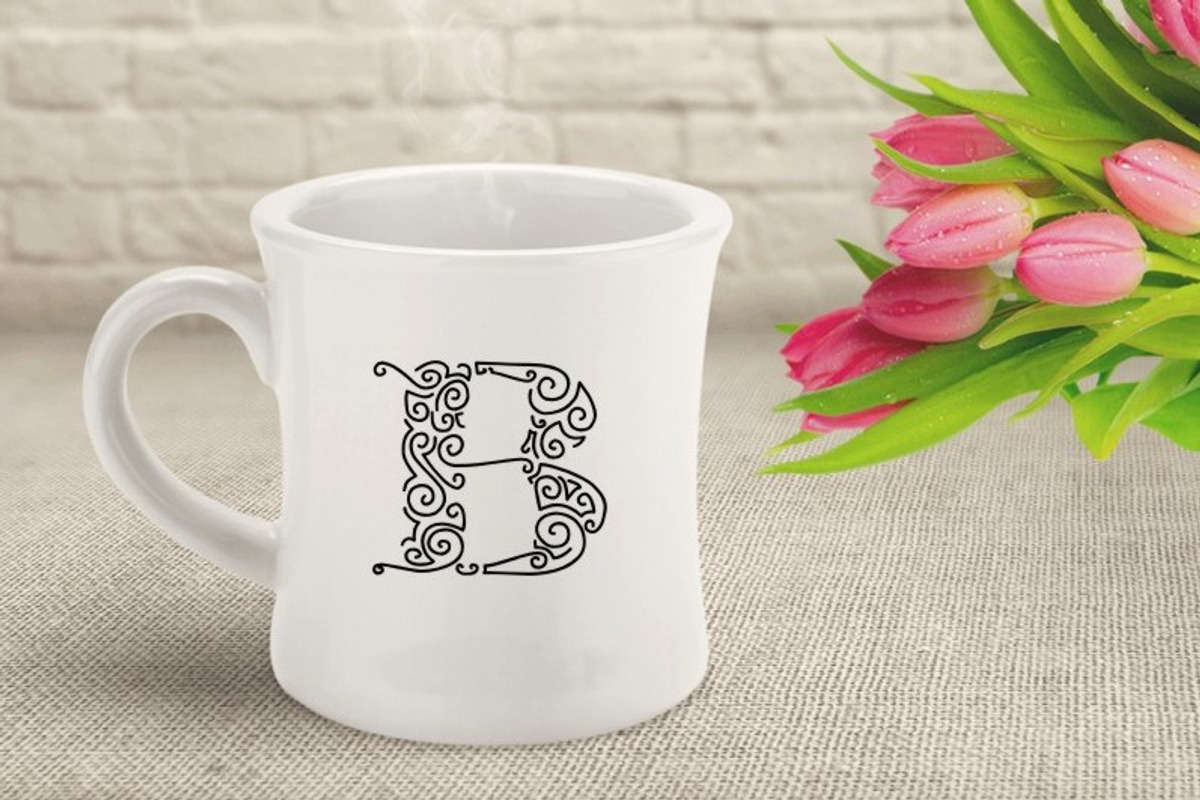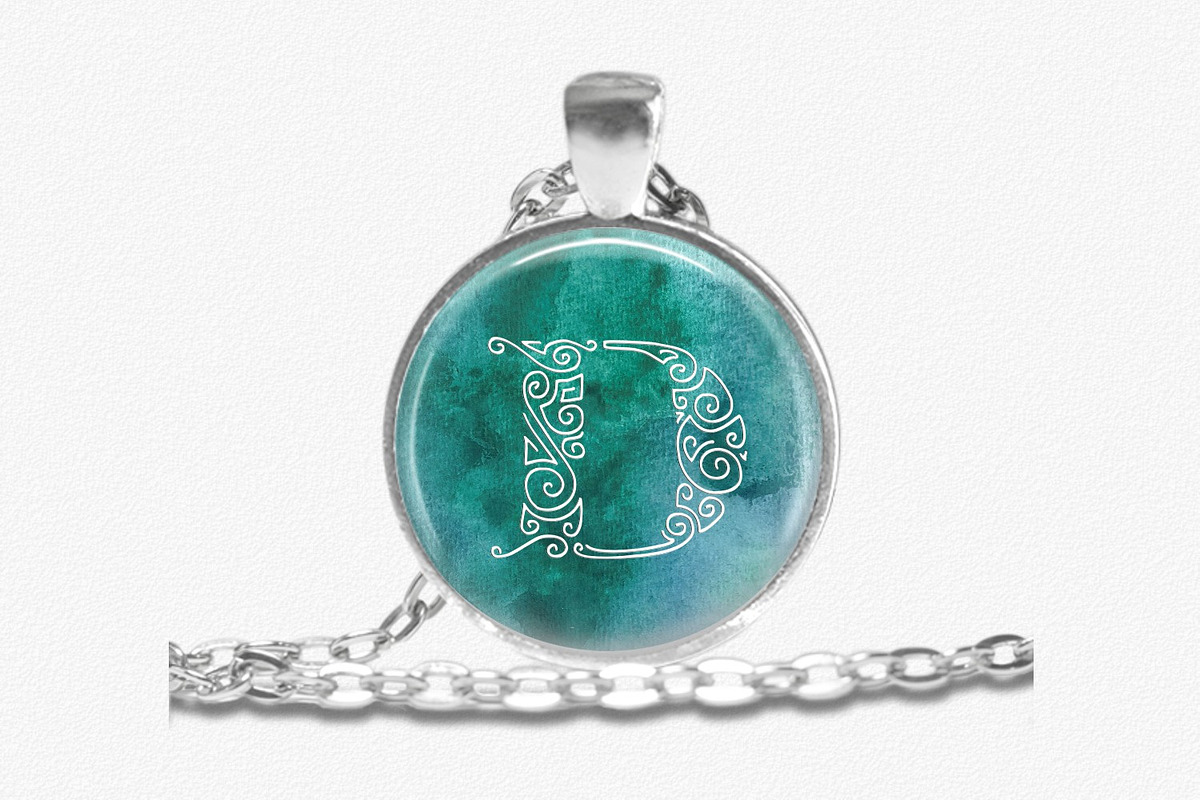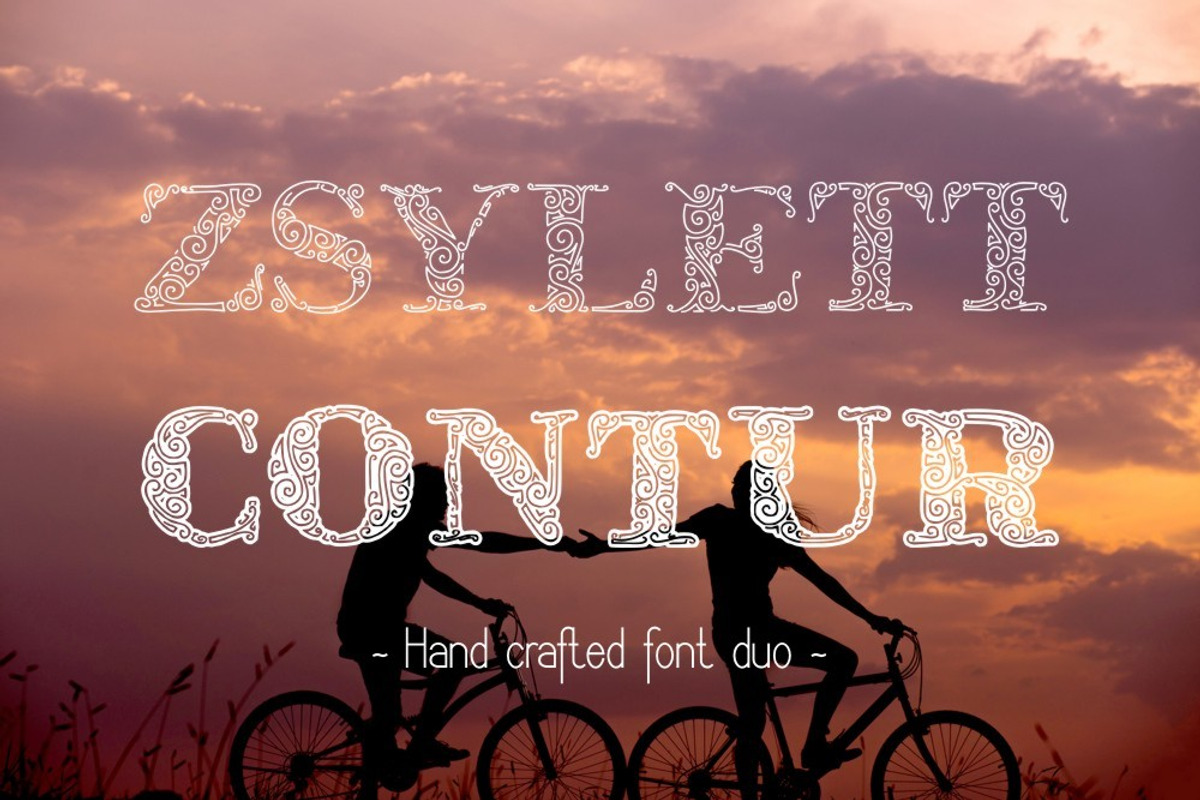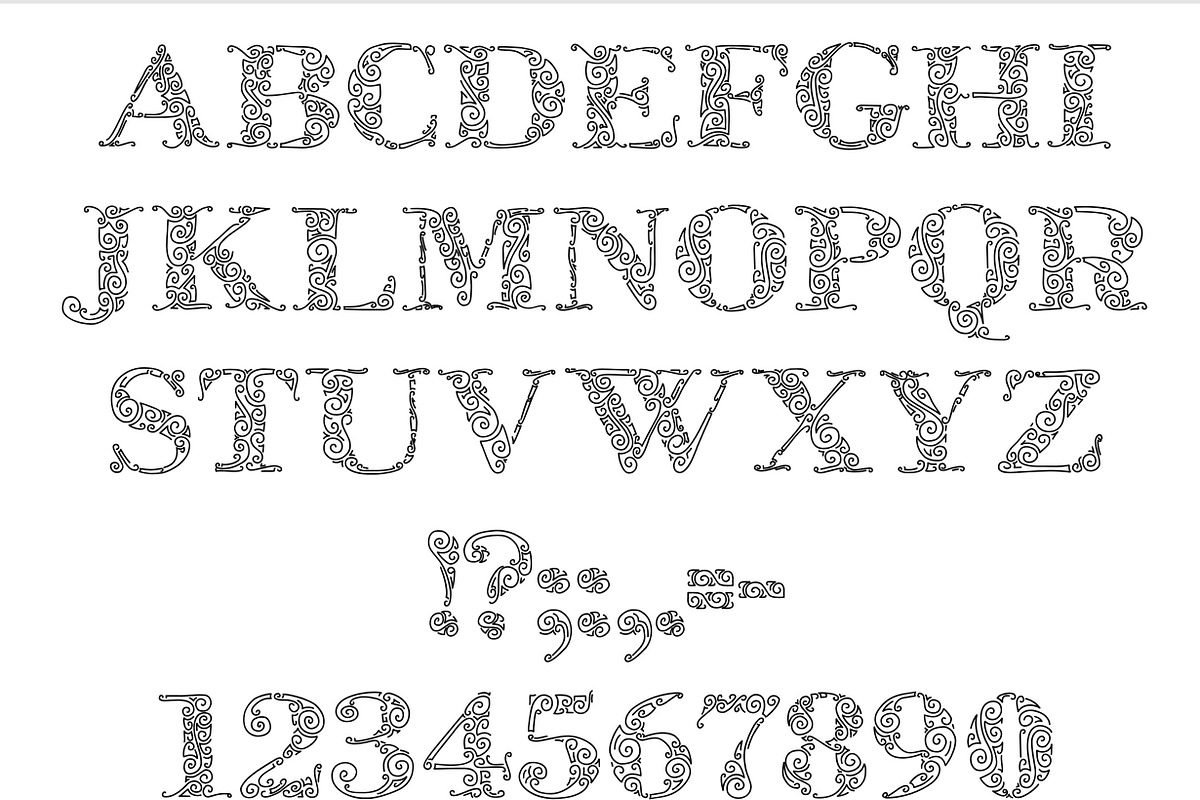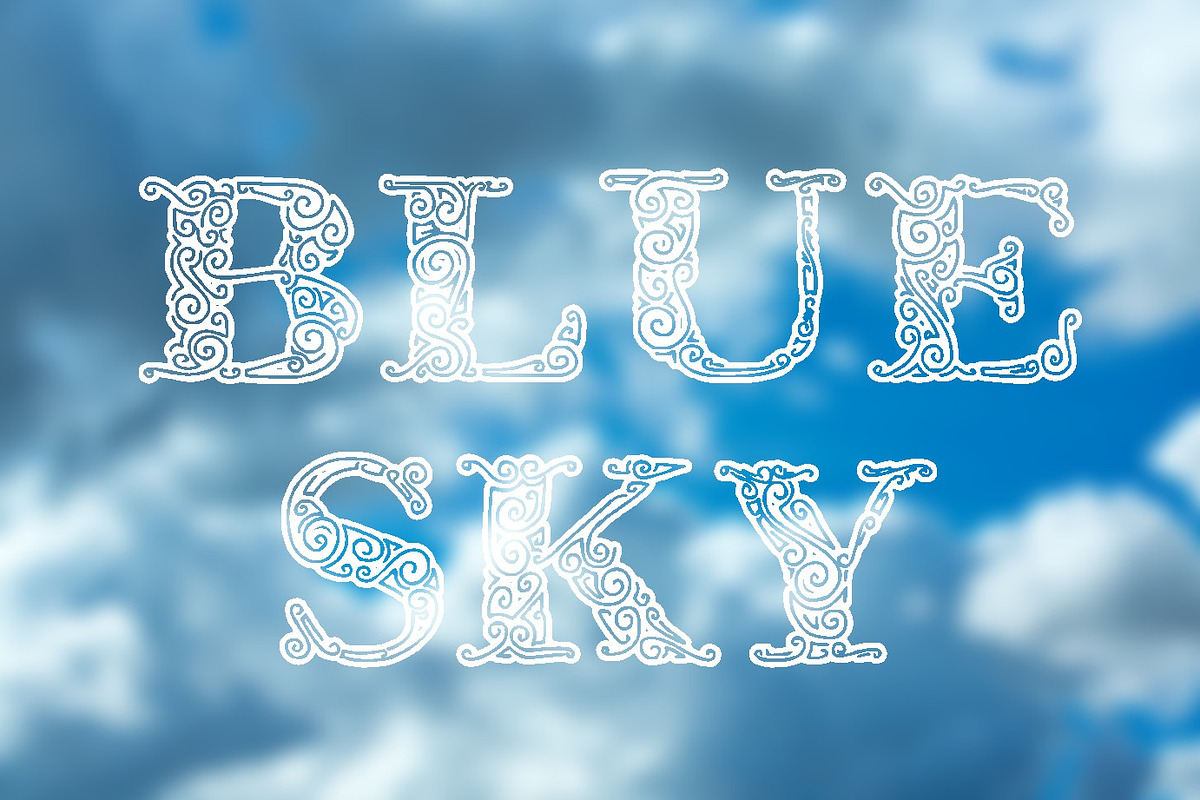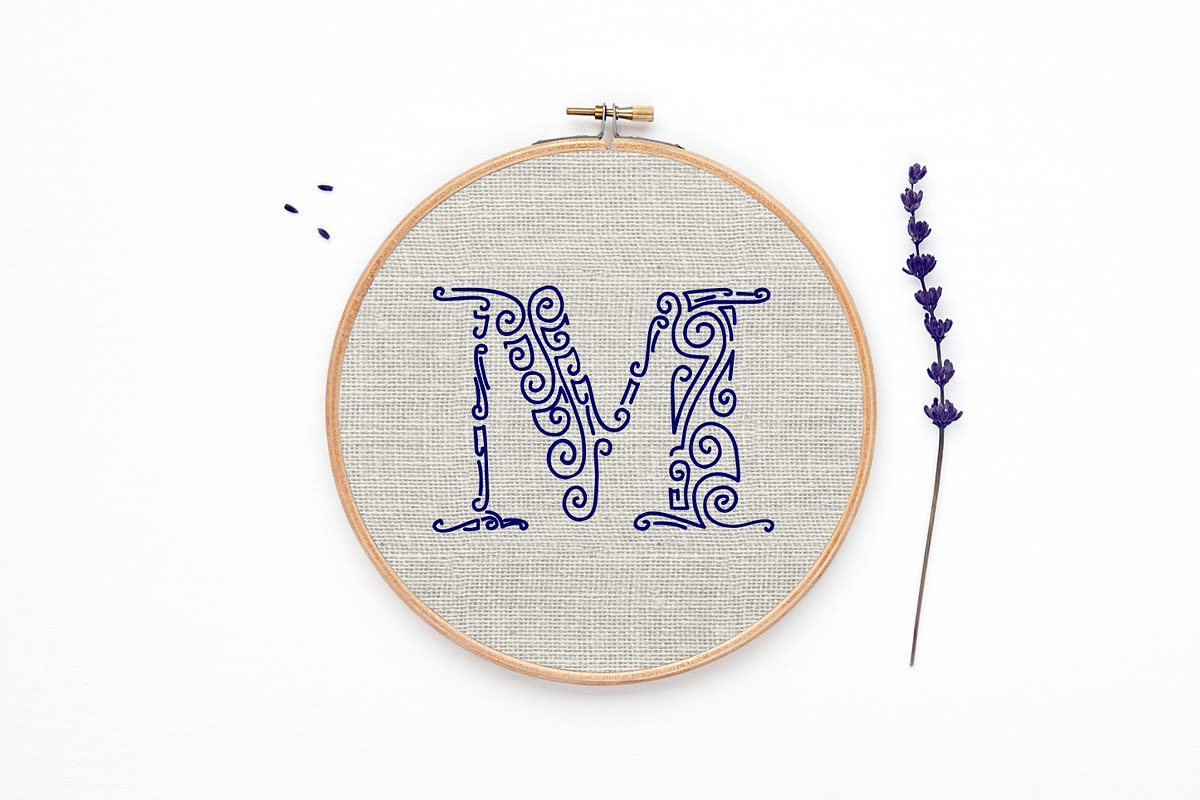
Zsylett Font Duo
Zsylett Font Duo by Digital Typeface Studio is a font selected for branding, posters, packaging, typography.
Why Zsylett Font Duo is worth a look
Zsylett Font Duo by Digital Typeface Studio fits naturally into Branding, posters, packaging, typography.